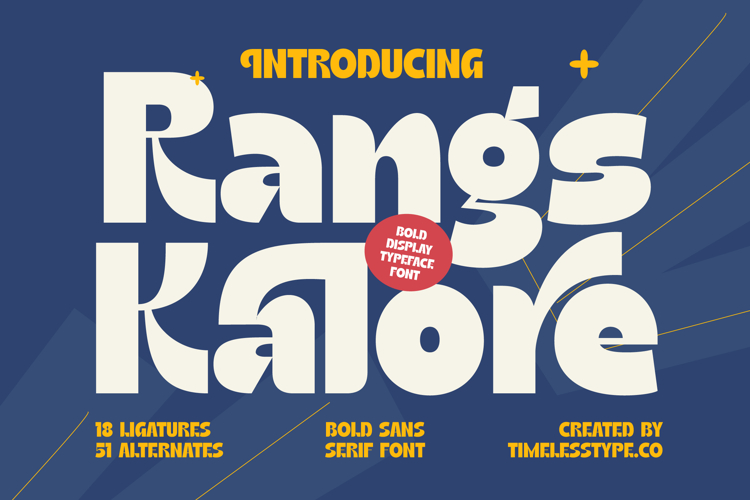
Rangs Kalore - Bold Sans Serif Font
Unleash a wave of unforgettable visual identity with Font Rangs Kalore - Bold Sans Serif Font Sans Serif. This exceptional bold display typeface commands attention with its robust, yet elegantly rounded forms and impressive visual weight. Designed for instant impression, its distinctive character and harmonious balance ensure your message is not just seen, but remembered. Perfect for projects demanding a strong, memorable aesthetic that captivates and engages audiences.
Experience unparalleled creative freedom with the unique design philosophy behind Font Rangs Kalore - Bold Sans Serif Font Sans Serif. Its playful yet sophisticated unique contours and generous curves provide a refreshing alternative to conventional sans-serifs. A rich array of stylistic alternates and ligatures further enhances its expressive potential, allowing designers to craft bespoke typographic compositions that truly reflect brand personality. This font is a true testament to modern typographic artistry.
Designed for ultimate impact and global reach, Font Rangs Kalore - Bold Sans Serif Font Sans Serif is perfect for modern branding, captivating luxury packaging, dynamic editorial design, and high-impact headlines. Its bold presence ensures legibility and charisma. With its extensive multilingual support, Font Rangs Kalore - Bold Sans Serif Font Sans Serif adapts seamlessly across global markets, making it incredibly versatile for international projects and diverse cultural communications.
Elevate your design projects with a typeface that truly stands out, transforming ordinary text into extraordinary visual statements. Font Rangs Kalore - Bold Sans Serif Font Sans Serif is more than just a font; it's a powerful design asset crafted to convey confidence, creativity, and a uniquely stylish voice. Invest in this exceptional typeface to infuse your work with unforgettable presence and distinction.